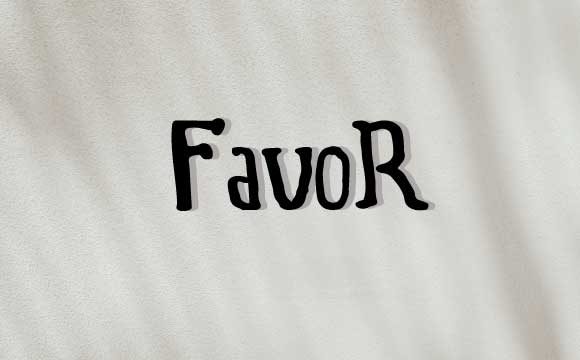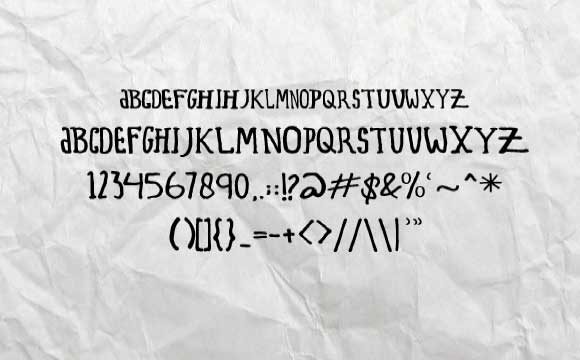
HomeScript FontsFavor Font Script Fonts Favor Font FacebookXPinterestWhatsApp Favor Font Poster 2 About Favor Font Favor is a simple and casual script that will add a personal feel to your next design project! DOWNLOAD ON CREATIVE FABRICAThis font is sold and delivered by Creative Fabrica. Font Canyon may earn a commission if you buy through this link. People also explored Baby Dinosaur Font Where to Next Font Glowing Font Diamend Font Black Font Peace Font Snowhart Font Heart Wings Monogram Font Swirly Kids Font 294 0 TagsFavor Font Previous articleNatune FontNext articleSignaline Duo Font LEAVE A REPLY Cancel reply Comment: Please enter your comment! Name:* Please enter your name here Email:* You have entered an incorrect email address! Please enter your email address here Website: Save my name, email, and website in this browser for the next time I comment. Personal Use Free Senza Bella Personal Use Free Read more about this font Hysteria Santa Personal Use Free Read more about this font Berry Personal Use Free Read more about this font Bettari Personal Use Free Read more about this font BLOG Where to Buy American Fonts Online in 2024 Where to Buy American Fonts Online: The Ultimate Guide for 2024 Looking for the perfect American font to elevate your design projects? You're in the... Best Fonts for YouTube Videos: Make Your Thumbnails Stand Out How to Install and Use Fonts on Windows, macOS, and Web Projects How to Cut Any Font on Cricut: Convert a Font to SVG (Free)